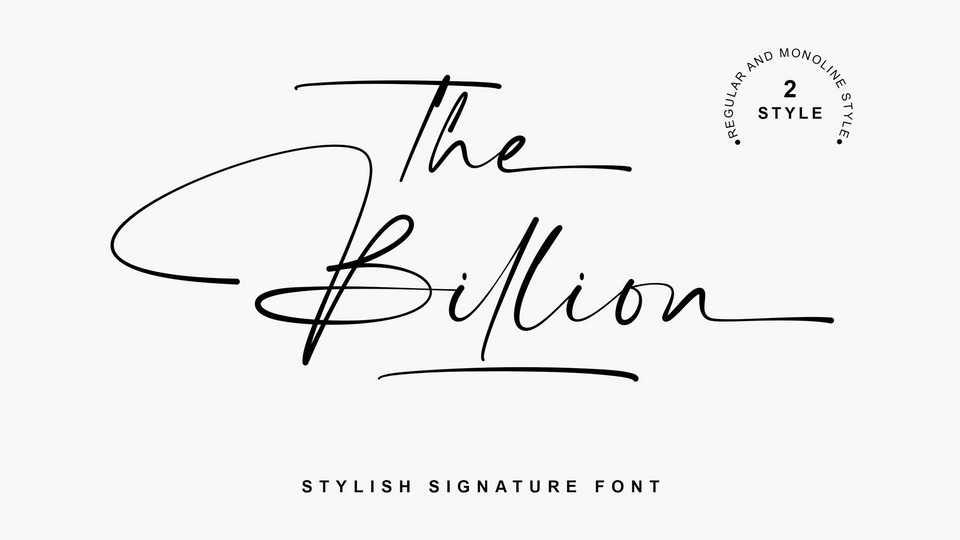
Download The Billion font, a perfect signature style typeface with 2 styles. The Billion font is perfect for many different project such as logos and branding, invitation and cards, wedding designs, social media posts, advertisements, label, photography, watermark, special events or anything.